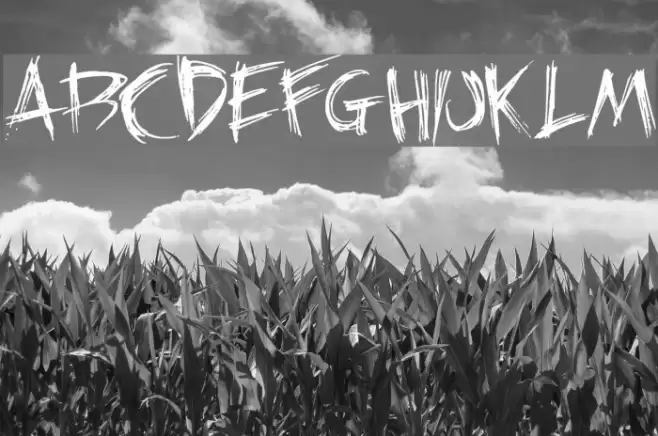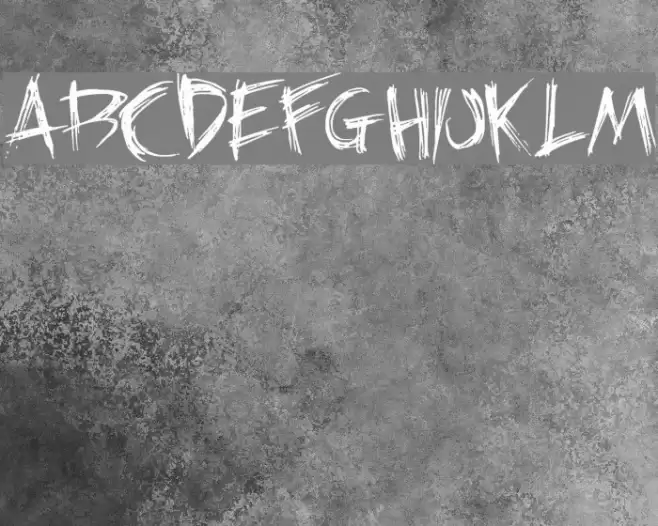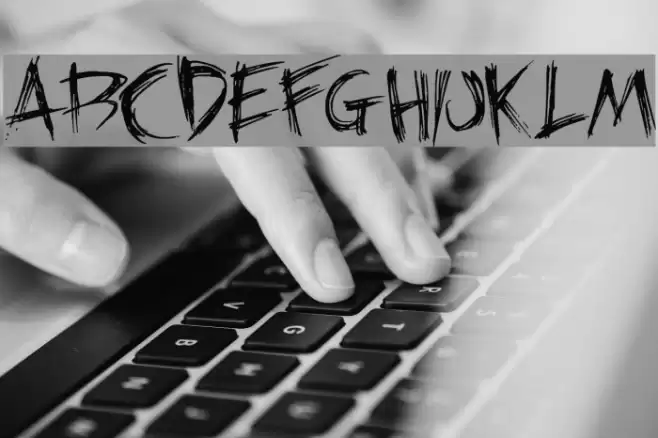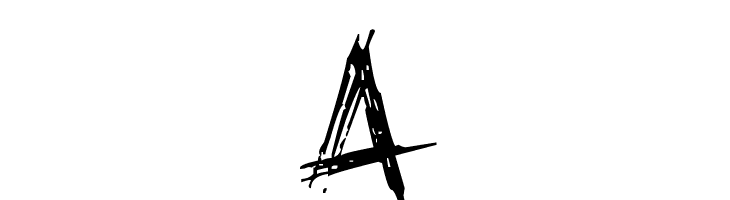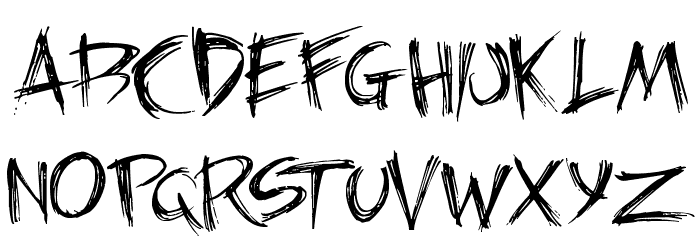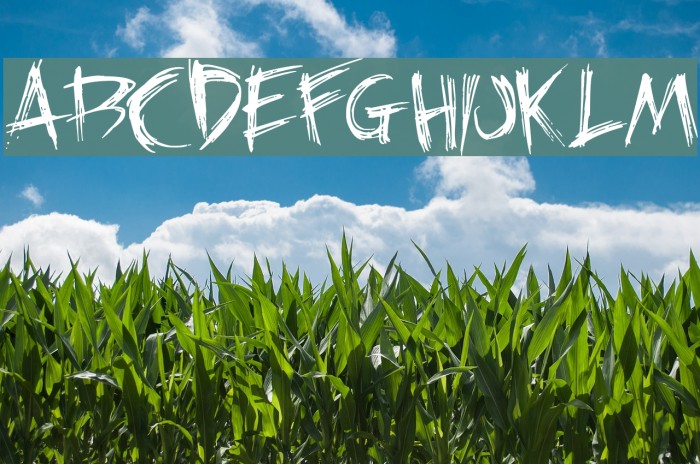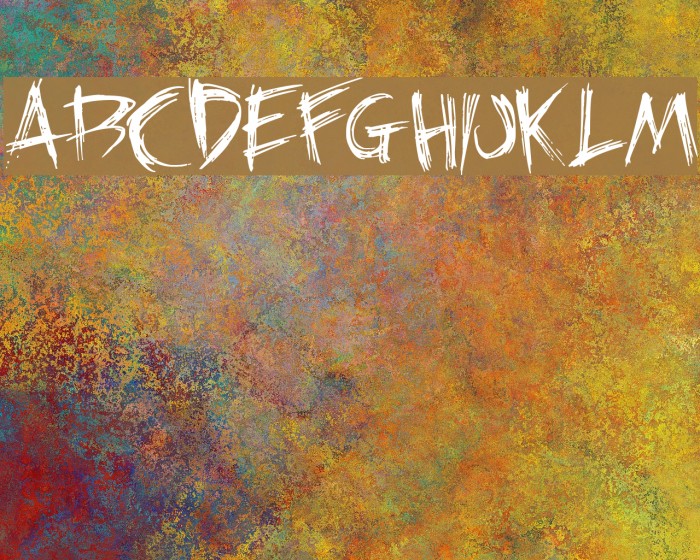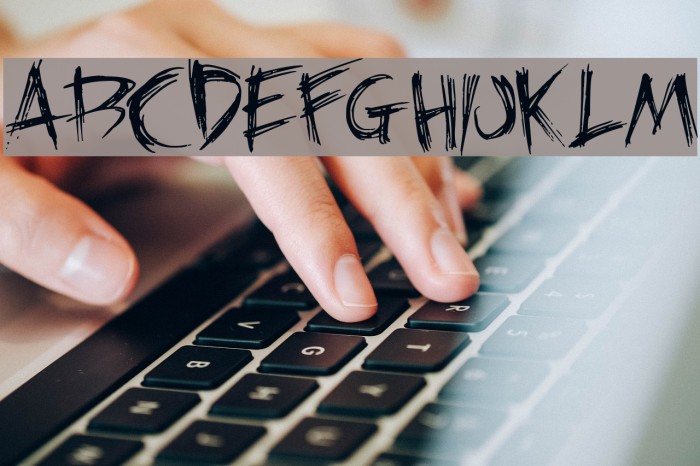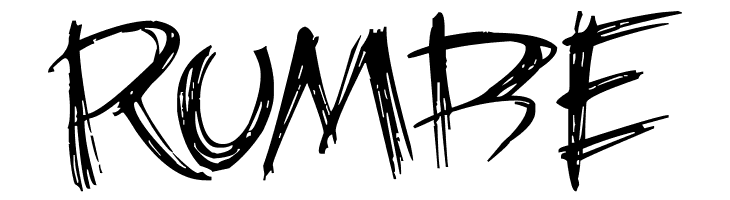
This font features a bold, expressive style with a hand-drawn appearance. The letters are characterized by uneven strokes and a rough, edgy texture, giving it a dynamic and energetic feel. The uppercase and lowercase letters maintain a consistent style, with jagged edges and varying stroke widths that create a sense of movement and intensity. The numbers and special characters follow the same aesthetic, ensuring a cohesive look across all elements. This font is ideal for projects that require a bold and impactful visual statement.
A bold, hand-drawn font with rough, edgy strokes and dynamic energy from Uncategorized fonts.
- Proposed Projects: Perfect for album covers, posters, graffiti art, and edgy branding projects.
- Overall Style: Modern, Edgy